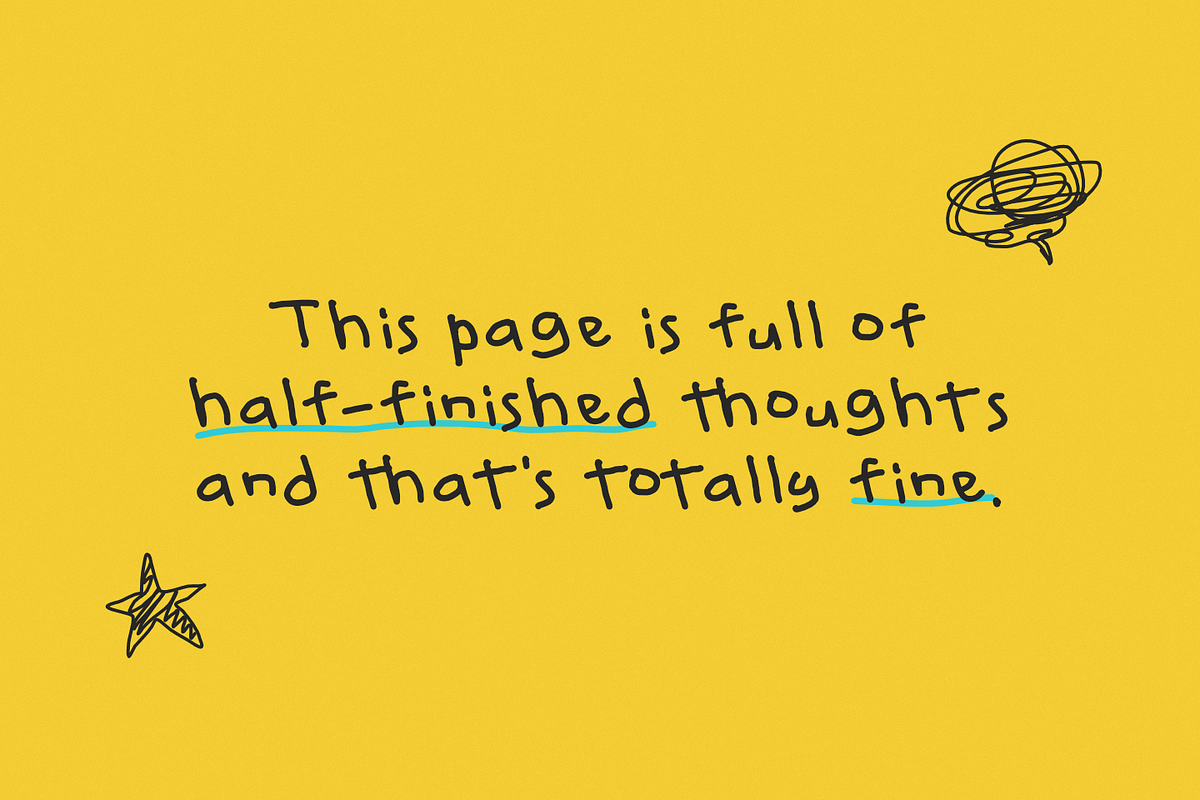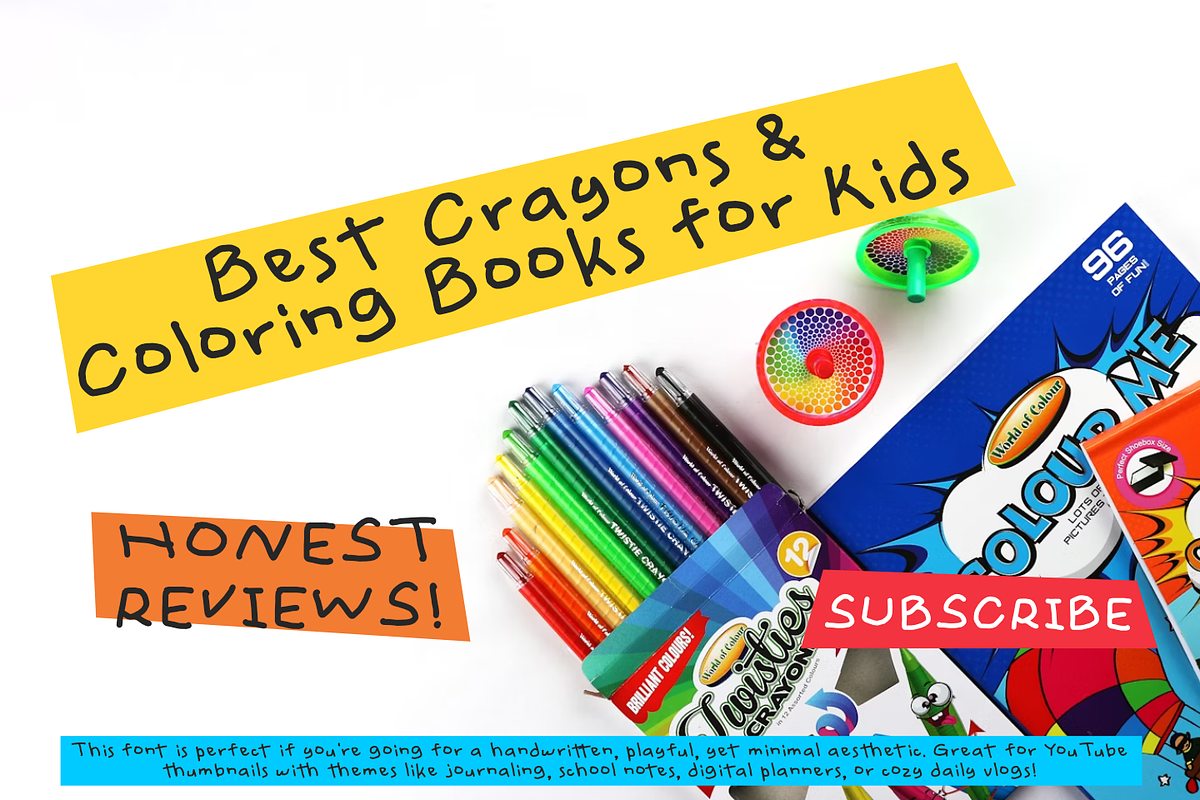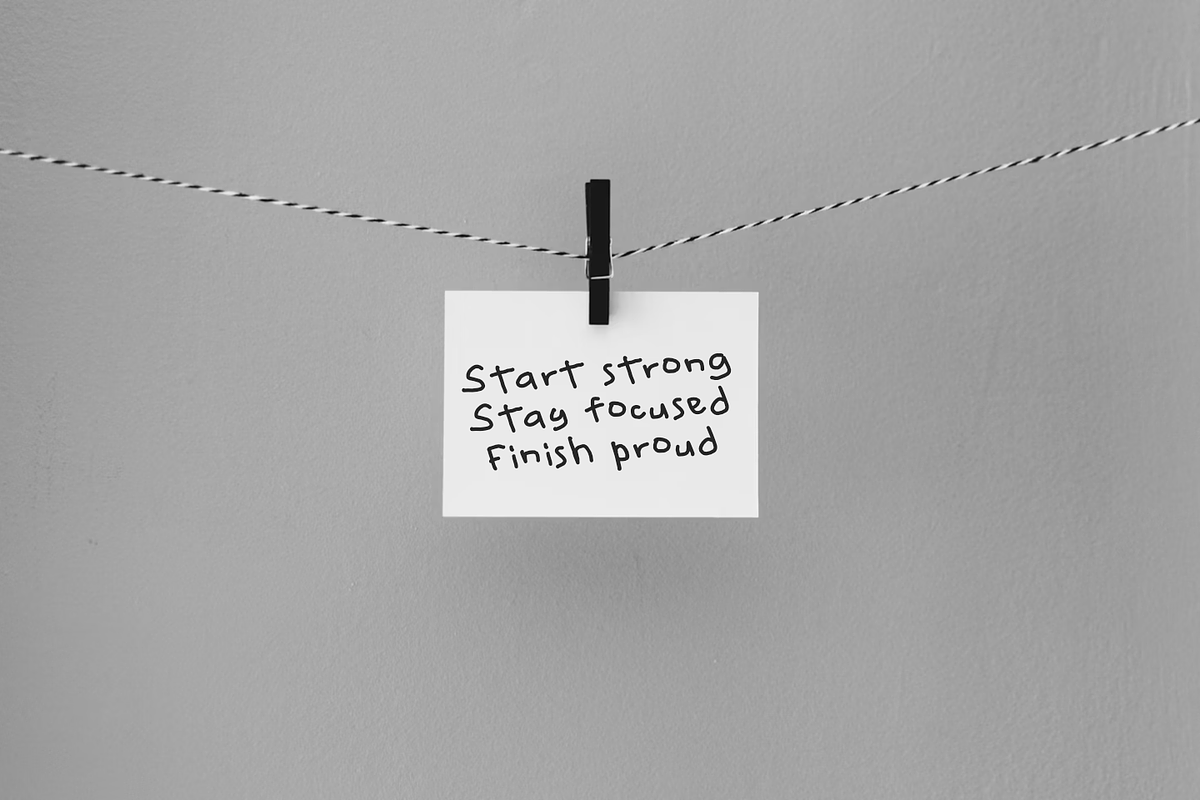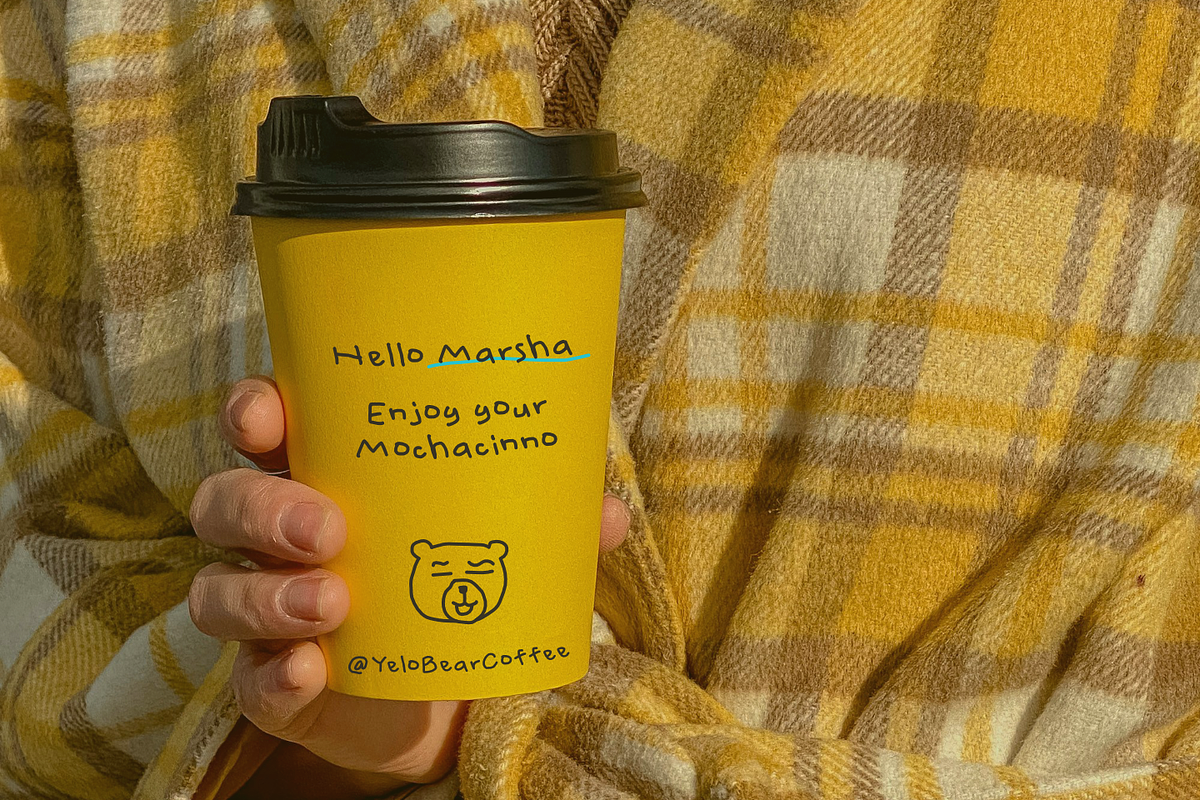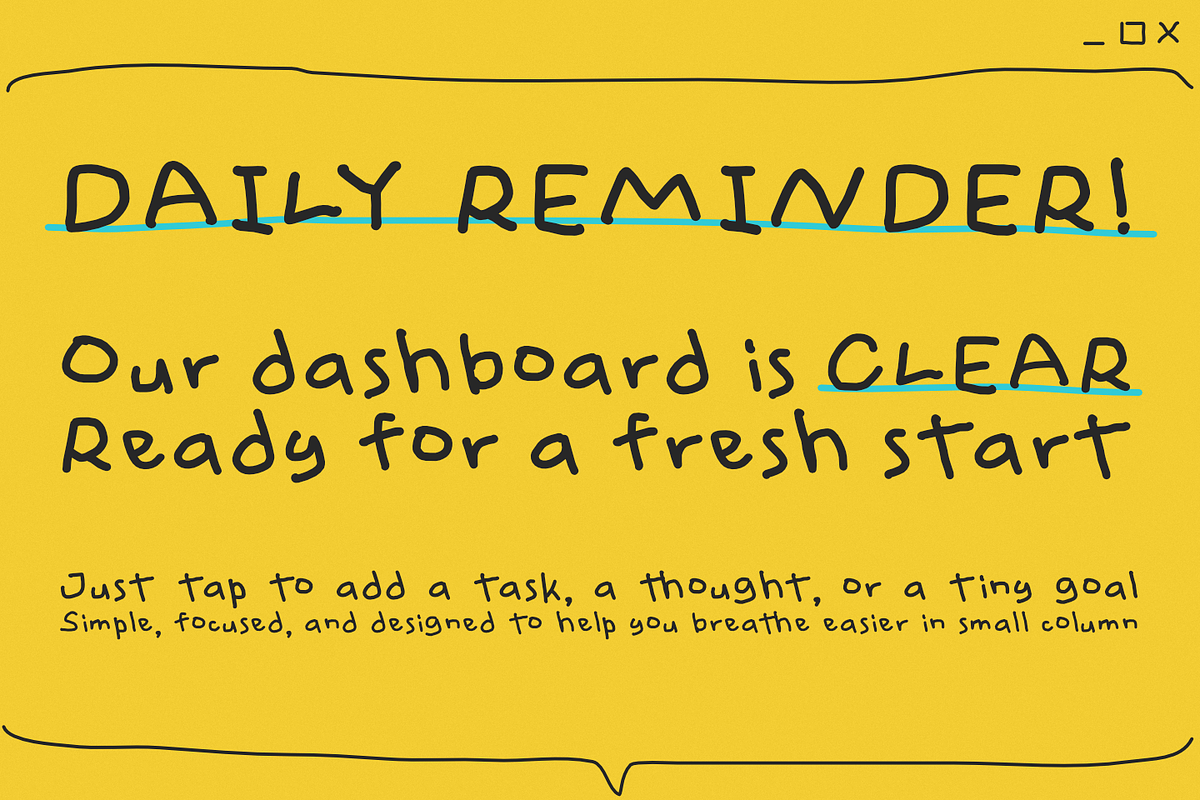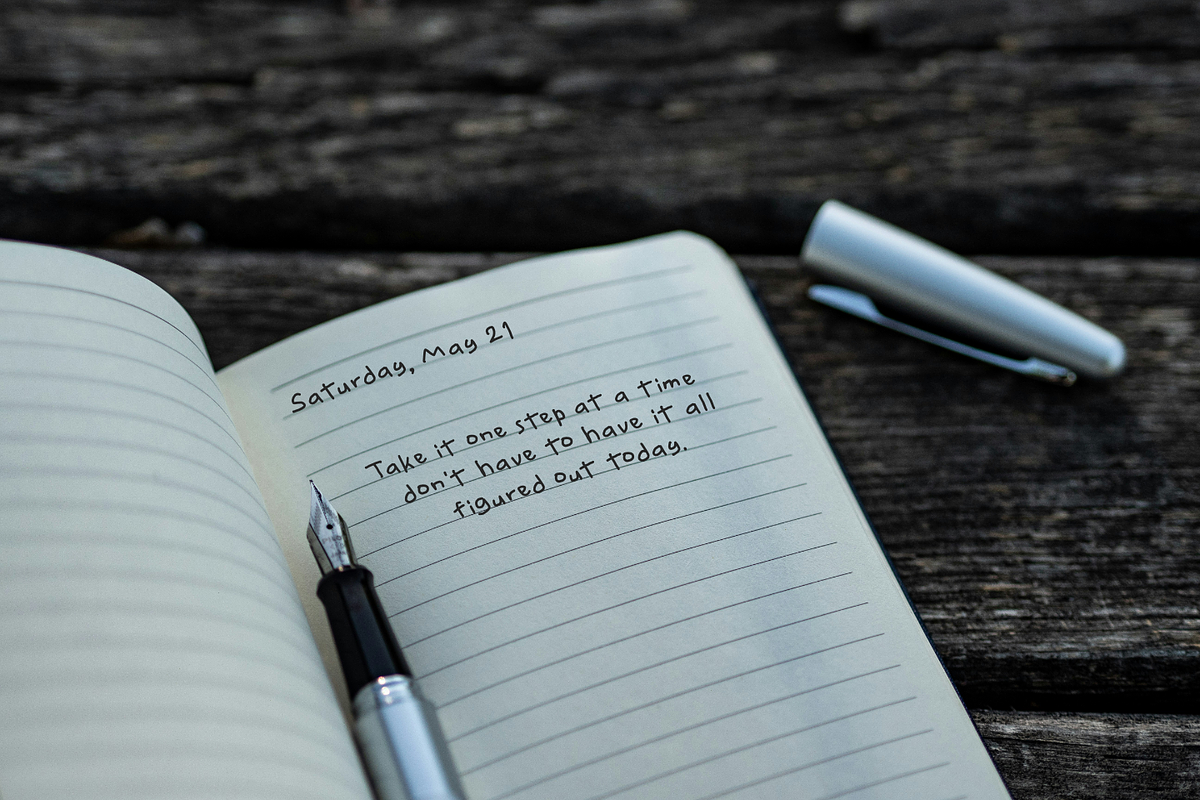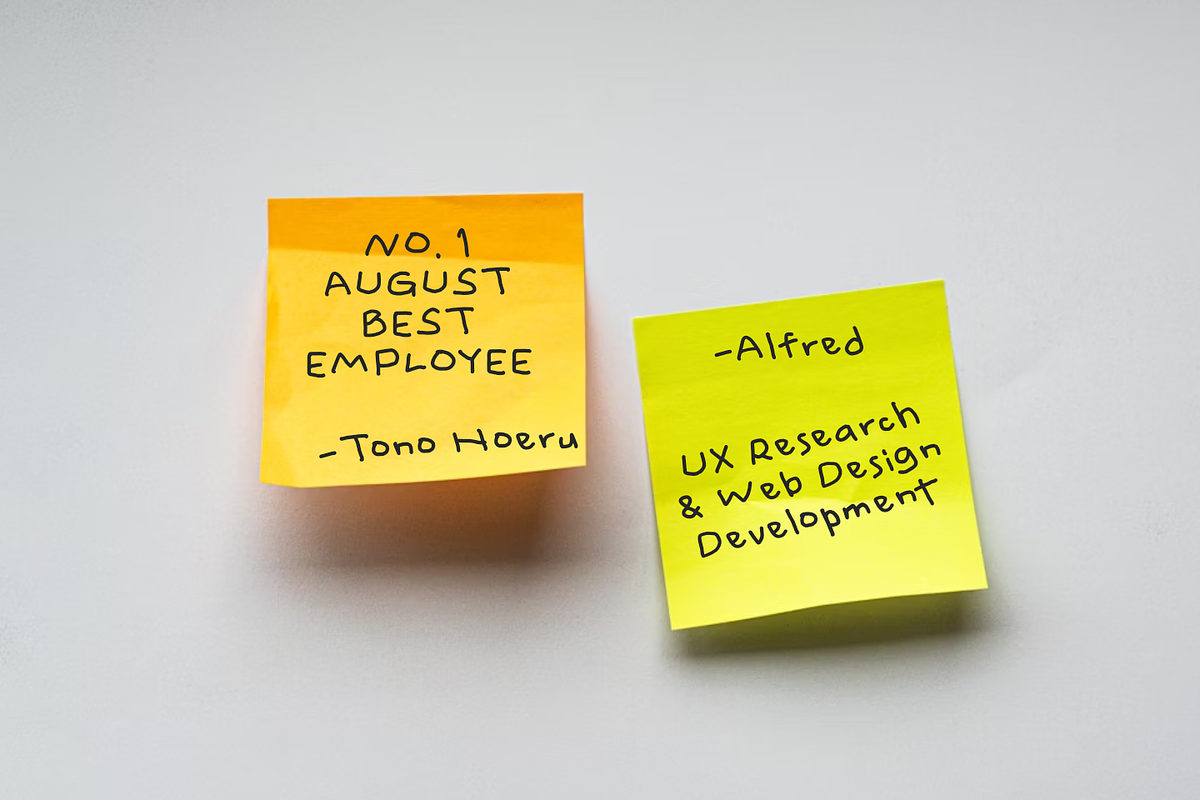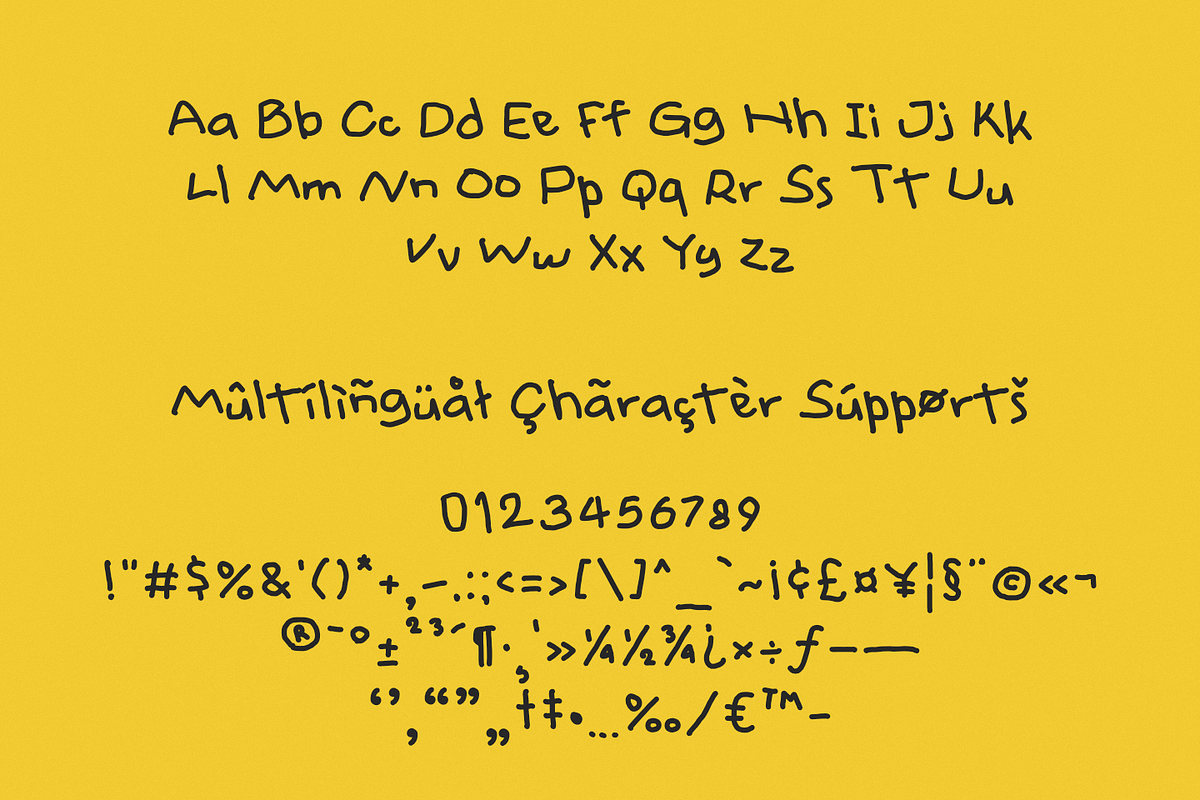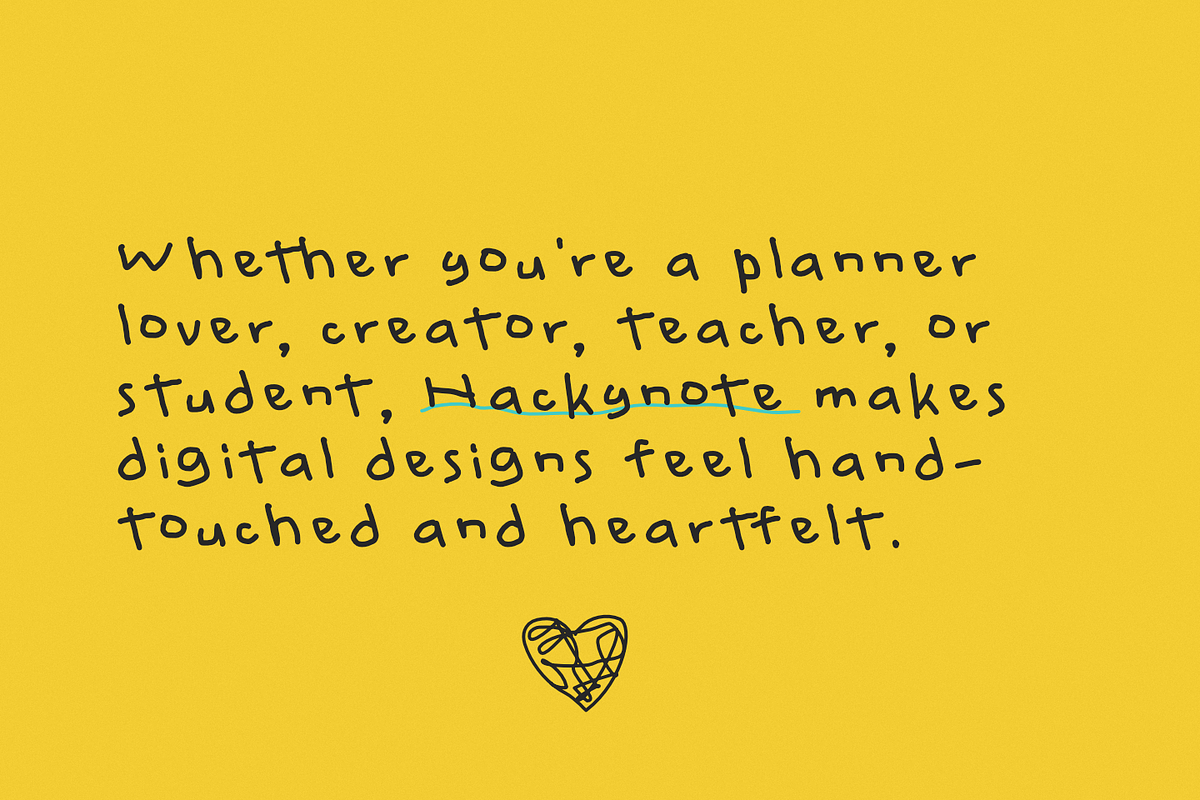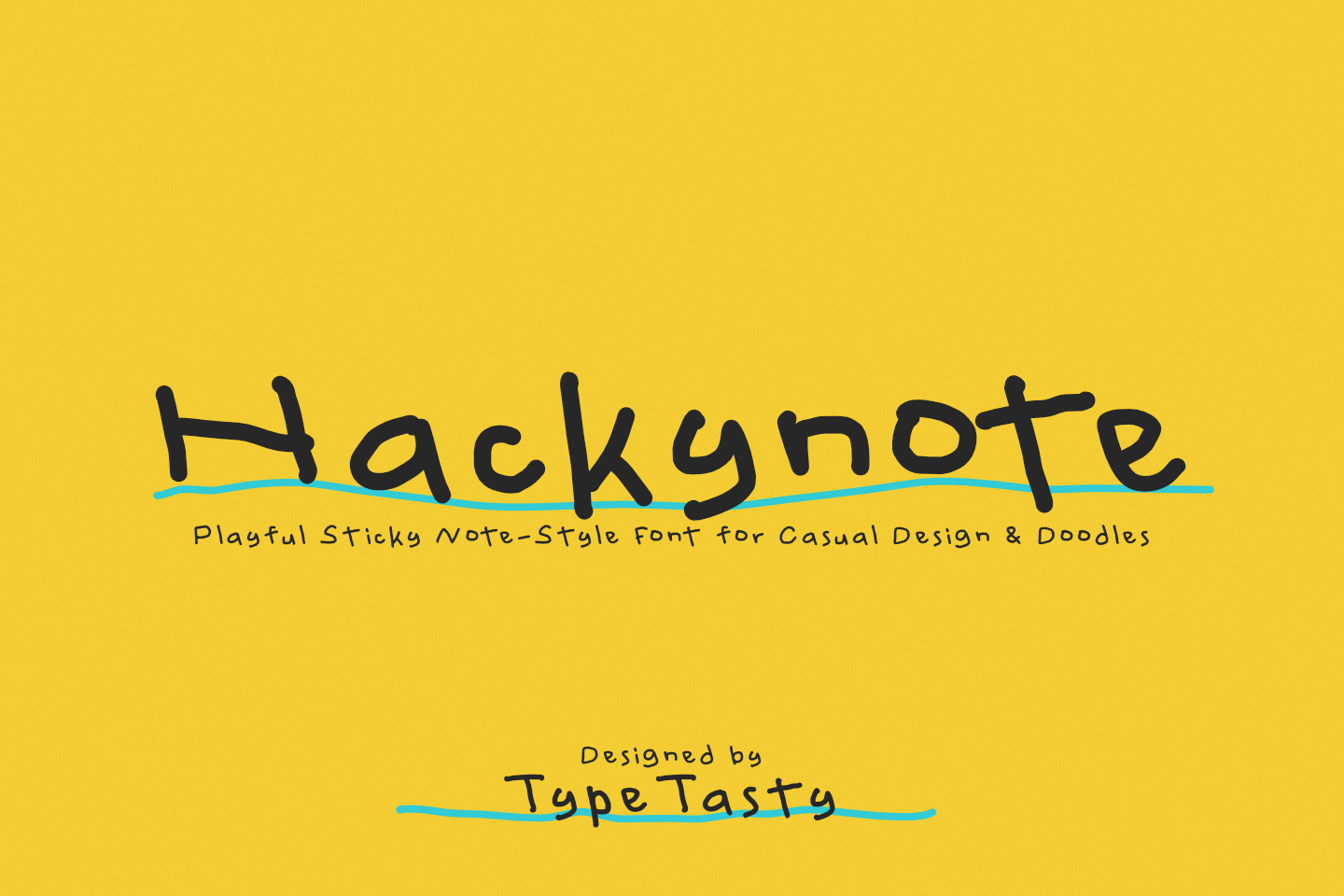
Hackynote – Playful Note Font
Hackynote – Playful Sticky Note-Style Font for Casual Design & Doodles
Hackynote is a cheerful handwritten font inspired by sticky notes, school doodles, and casual thoughts scribbled in passing. Its loose and spontaneous appearance gives any design a sense of relatability and warmth perfect for laid-back projects that don’t take themselves too seriously. Hackynote is a playful handwritten font designed to bring a personal, casual feel to your notes, planners, and creative projects. With its natural letterforms and sticky note-style personality, it’s perfect for students, content creators, or educators who want to add warmth and fun to their digital designs. Hackynote is great for social media, journaling, YouTube, or even bullet journals, making every message feel thoughtful and approachable.
Font style & energy: Informal, playful, friendly, quick
Market vibe fit: Ideal for journaling templates, student stationery, planners, DIY Instagram posts, classroom printables, and minimalist social graphics
Letterform structure: Rounded, handcrafted monoline style with natural tilt and spacing
Best use cases:
- Digital note-taking apps & UI elements
- Planner or calendar design
- Kids’ worksheets & learning tools
- YouTube thumbnails
- Sticker and label design
- Bullet journals and zines
Hackynote captures the charm of handwritten notes with all their quirks—instantly making your designs more personal, authentic, and fun. Whether you’re a planner lover, creator, teacher, or student, Hackynote makes digital designs feel hand-touched and heartfelt.